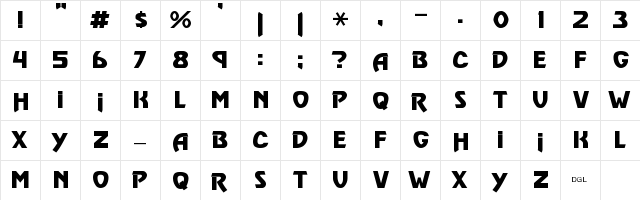
Vulgar Display Regular
Design Context for Vulgar Display Typeface
Vulgar Display is built around its visual character rather than neutral utility — its distinctive forms are designed to make an impression at display sizes.
Font Pairing: Pair with a clean neutral sans-serif for body copy to let Vulgar Display's character lead without overwhelming the composition.
Pro Tip: Treat Vulgar Display as the centrepiece of your typographic hierarchy. One strong heading set in a decorative face can carry an entire layout.